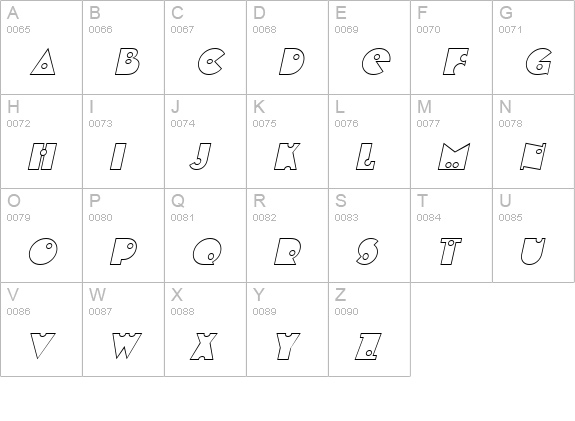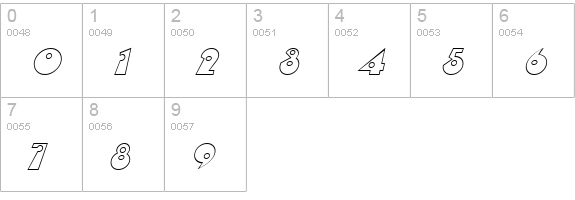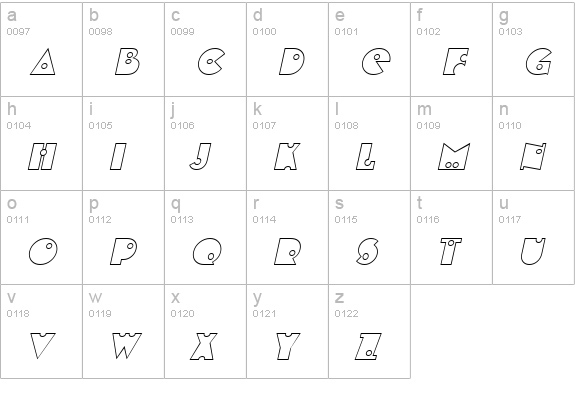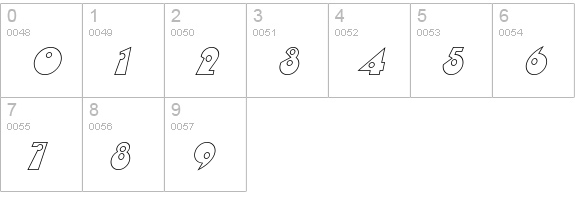
ShotShellOpen Italic Font Details
ShotShellOpen Italic is a distinctive, italic variant in the ShotShellOpen typeface family \xE2\x80\x94 well suited to design and typography projects.
Introducing ShotShellOpen Italic font, a captivating and dynamic typeface that is sure to make a bold statement in any design project. This exquisite font brings a touch of elegance and sophistication to your work, while still maintaining a sense of playfulness and creativity. ShotShellOpen Italic font is the perfect choice for those looking to add a unique and eye-catching element to their designs. Its stylish and sleek italicized form creates a sense of movement and fluidity, making it perfect for headlines, logos, and any other attention-grabbing design element. What sets ShotShellOpen Italic font apart from the rest is that it is not only visually stunning, but also completely free. Yes, you read that right! This incredible font is freely available to download at FontsMarket.com, allowing you to add a touch of professionalism to your designs without breaking the bank. Whether you're a graphic designer working on a client project, a student working on a school assignment, or simply a typography enthusiast looking to expand your collection, ShotShellOpen Italic font is a must-have addition. Its versatility and beauty make it a valuable asset in any design toolkit. So why wait? Download ShotShellOpen Italic font today and elevate your designs to new heights. Let your creativity soar and make a lasting impression with this stunning and freely available font.